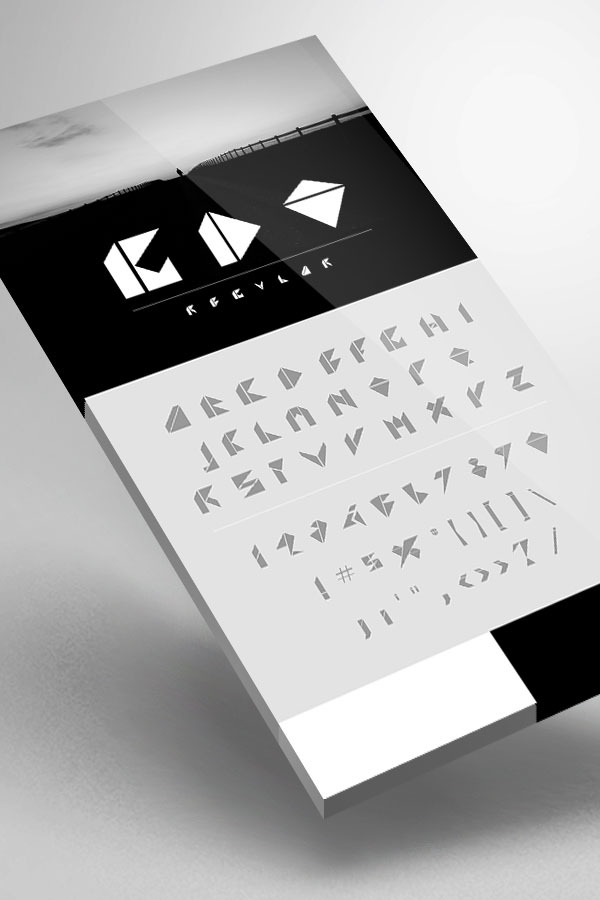
Gdo Font
gdo font was inspired by tangram shapes, with clean and stylish letters and numbers.
gdo font is a triangular font that works perfectrly for titles, posters, logos, social media, headlines, large-format print and anywhere else you want to be noticed.